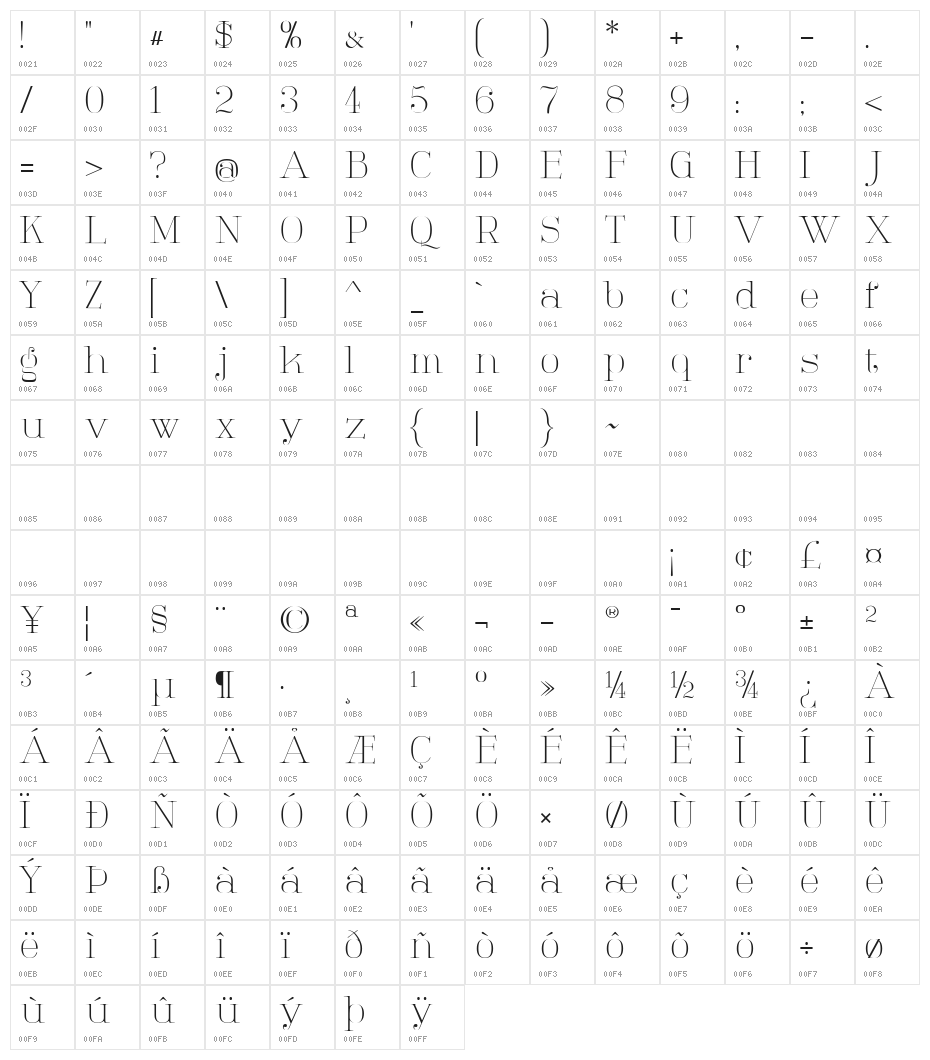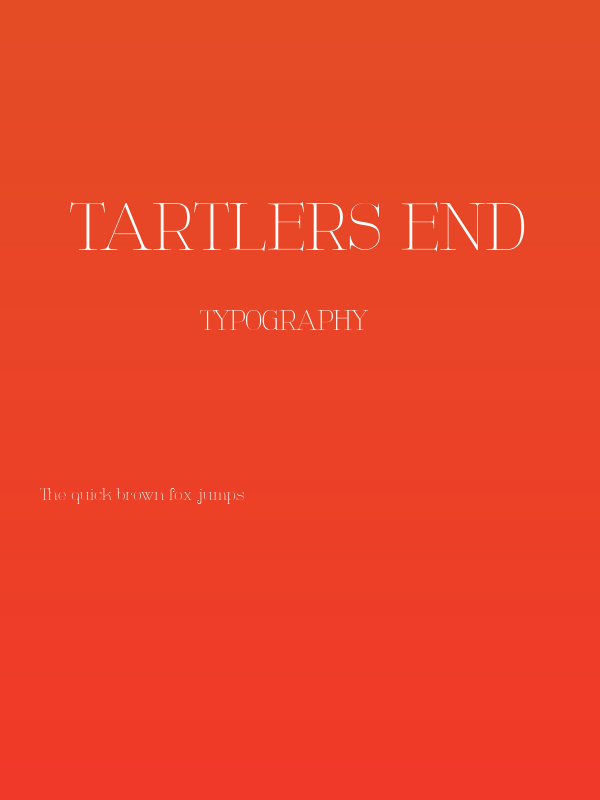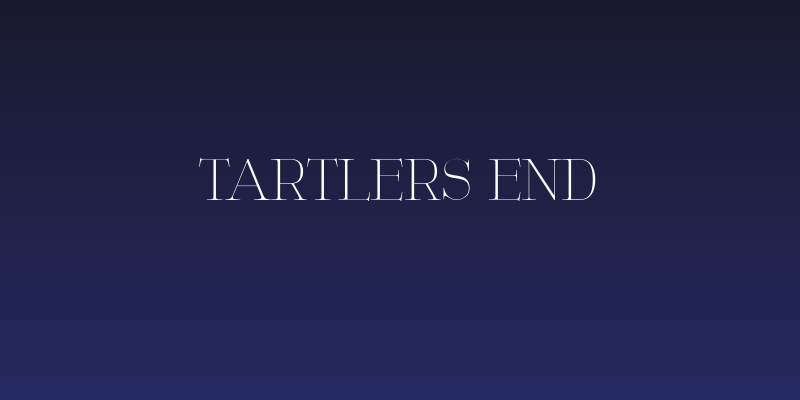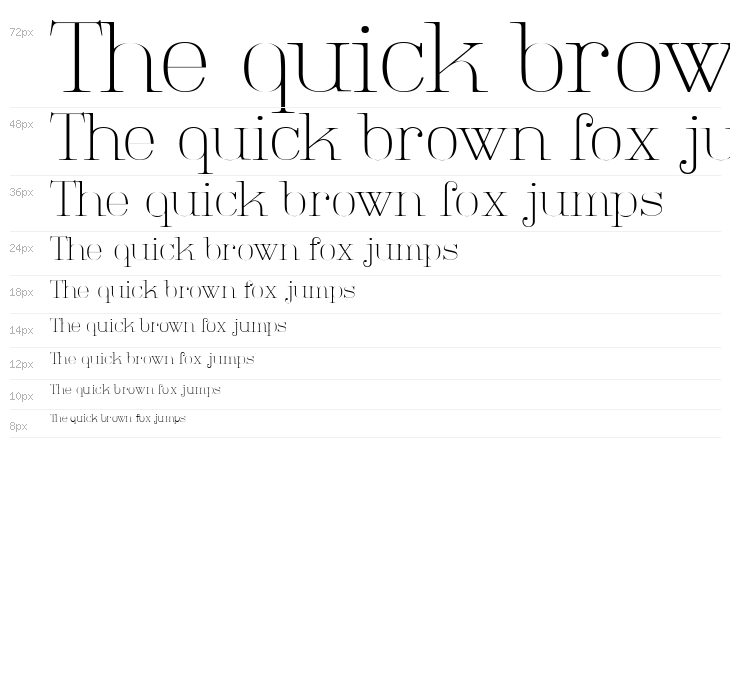
Tartlers End Font
Tartlers End Description
This elegant typeface features a refined and sophisticated design with thin, elongated strokes and subtle serifs. The uppercase letters exhibit a classic and formal appearance, while the lowercase letters maintain a consistent style with a touch of modernity. The numerals are well-proportioned, offering a harmonious balance between each character. Special characters are crafted with precision, adding to the overall aesthetic appeal. This font's delicate lines and high contrast between thick and thin strokes make it suitable for upscale and stylish applications.
| Proposed Projects | Ideal for luxury branding, wedding invitations, editorial design, and high-end product packaging. |